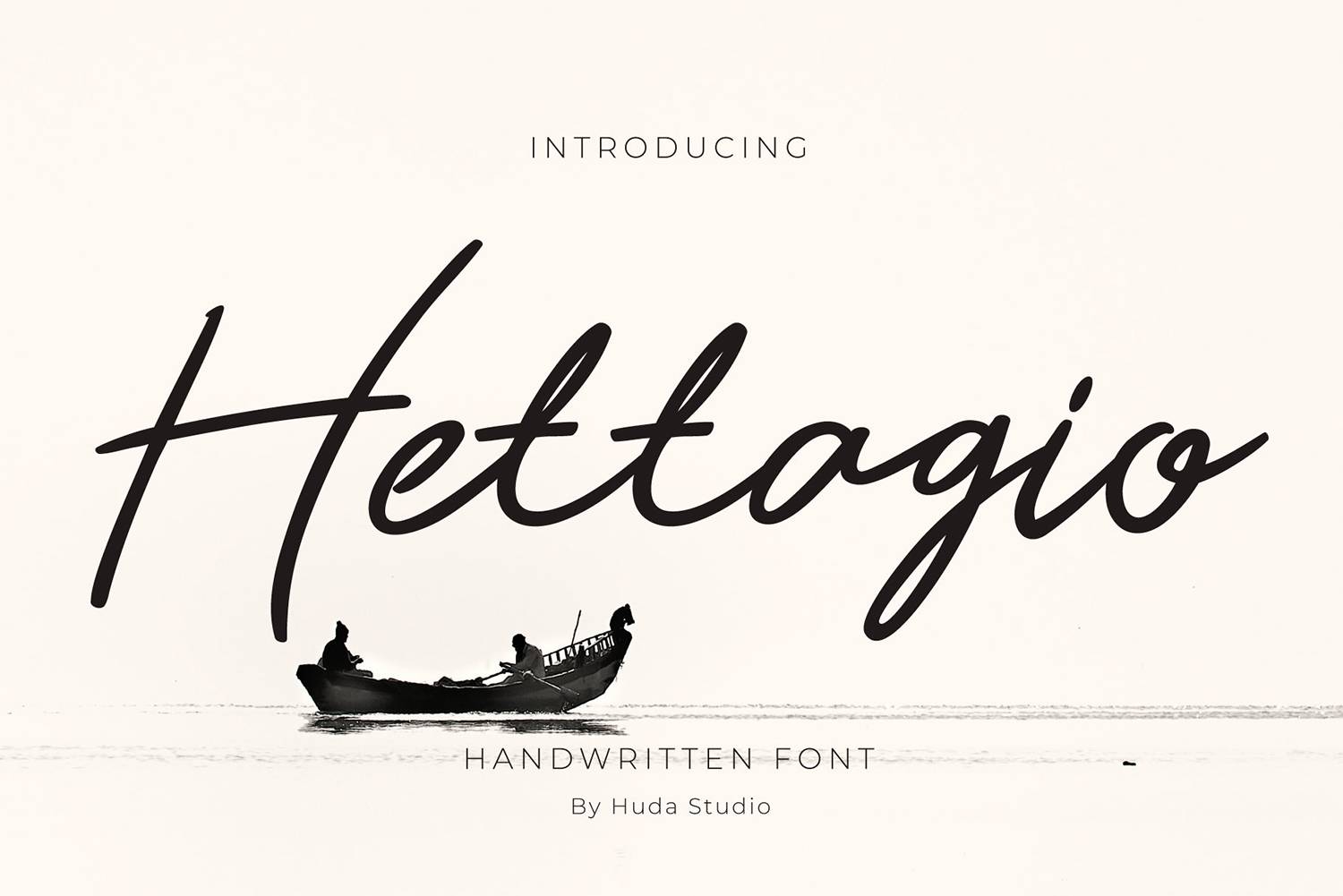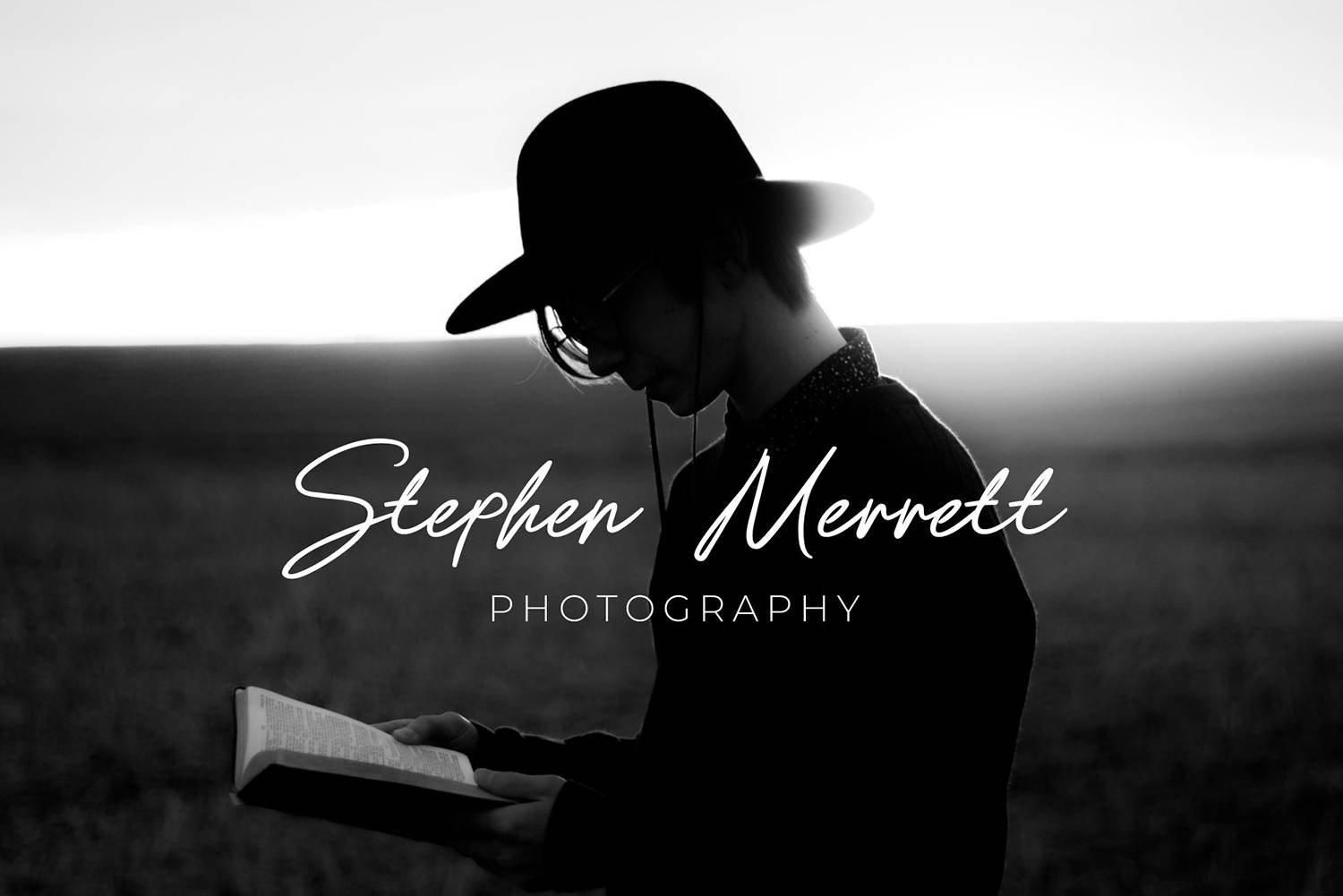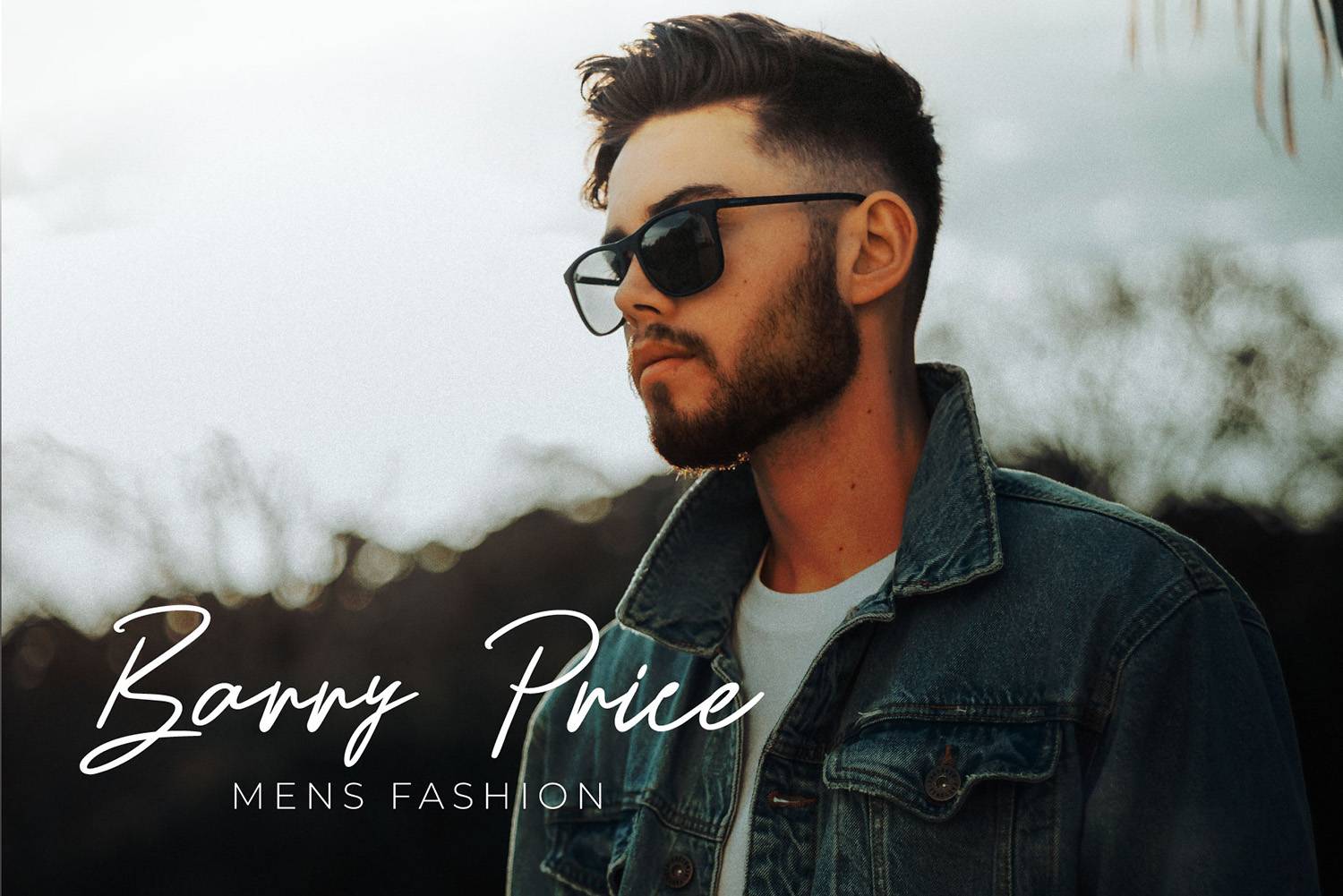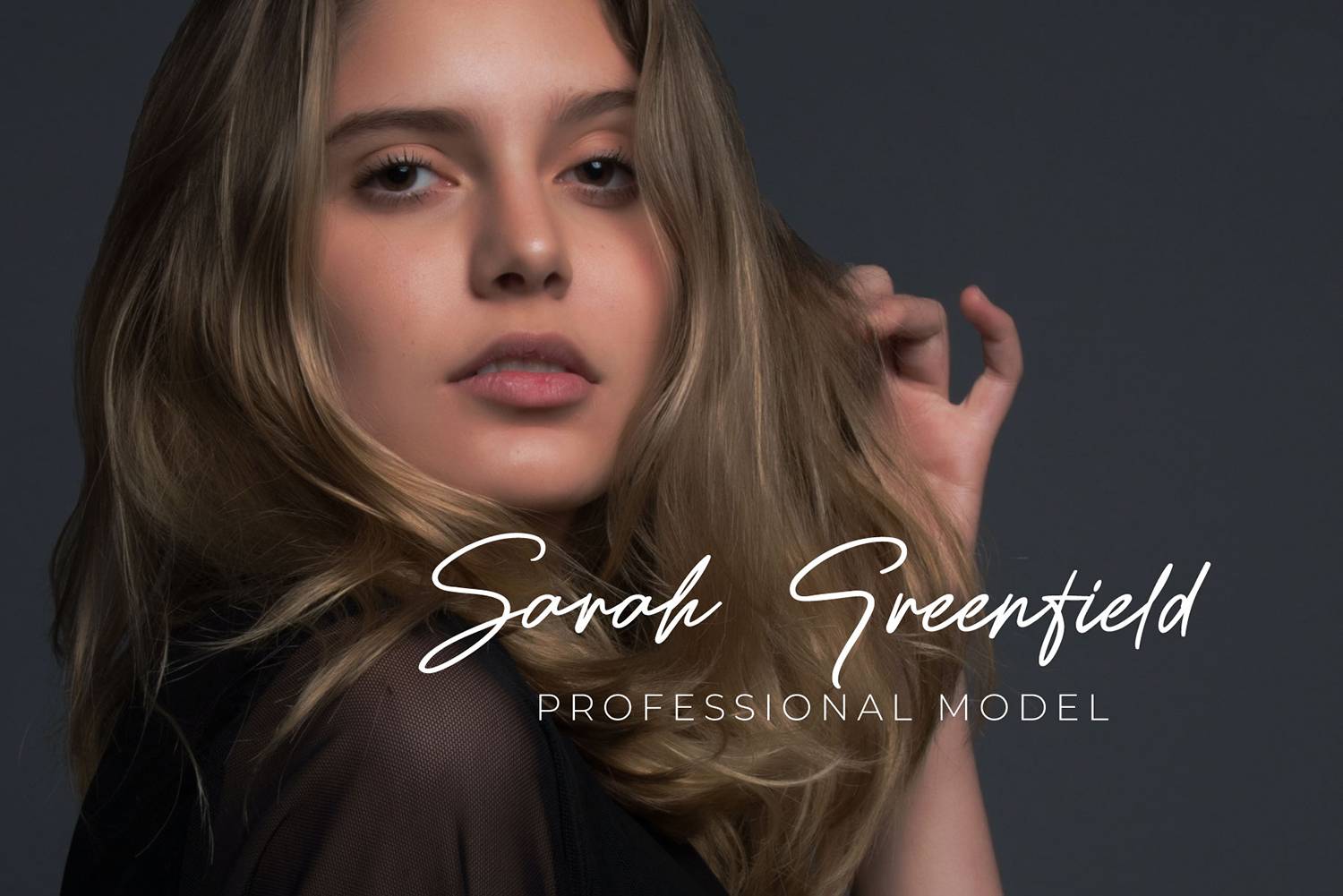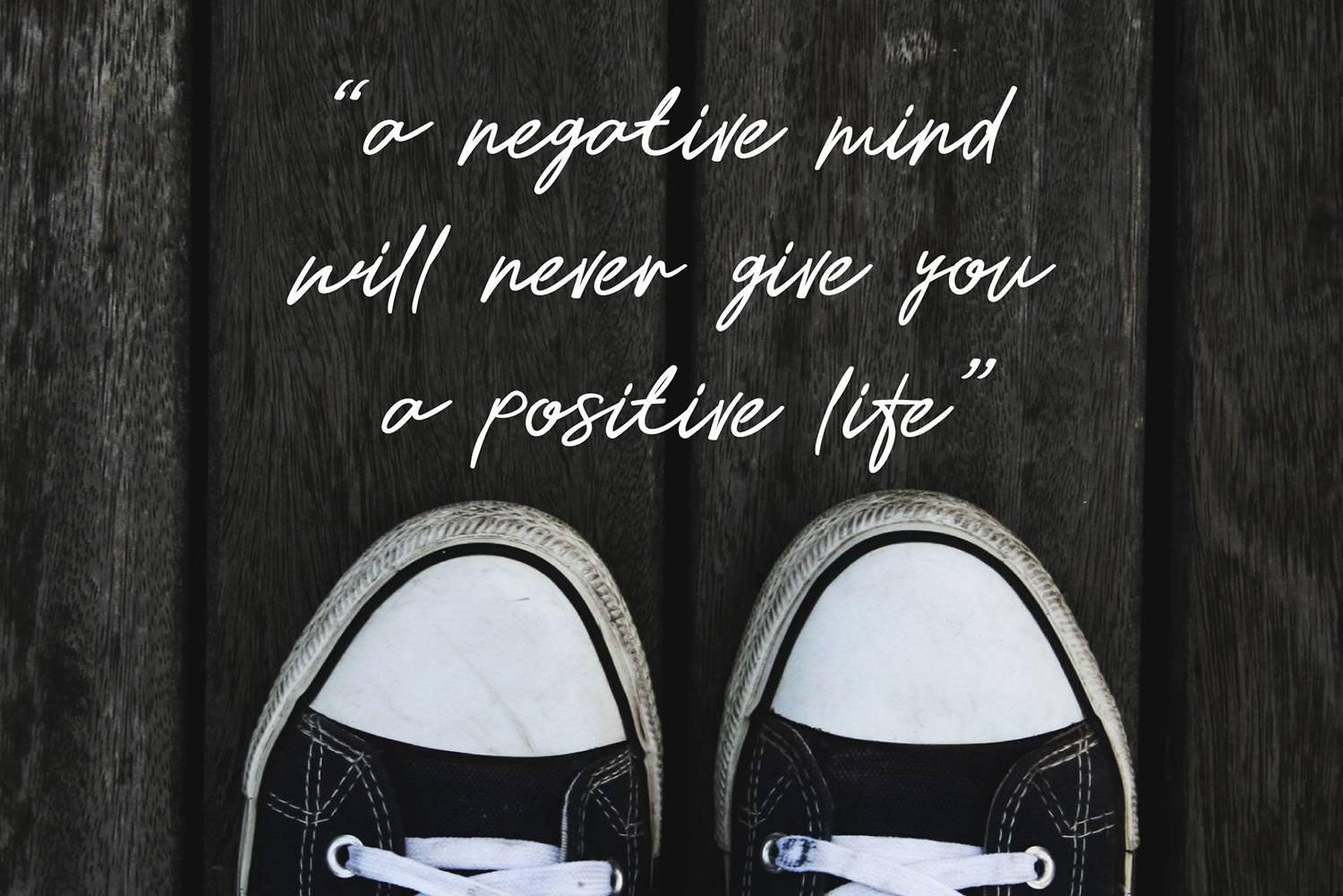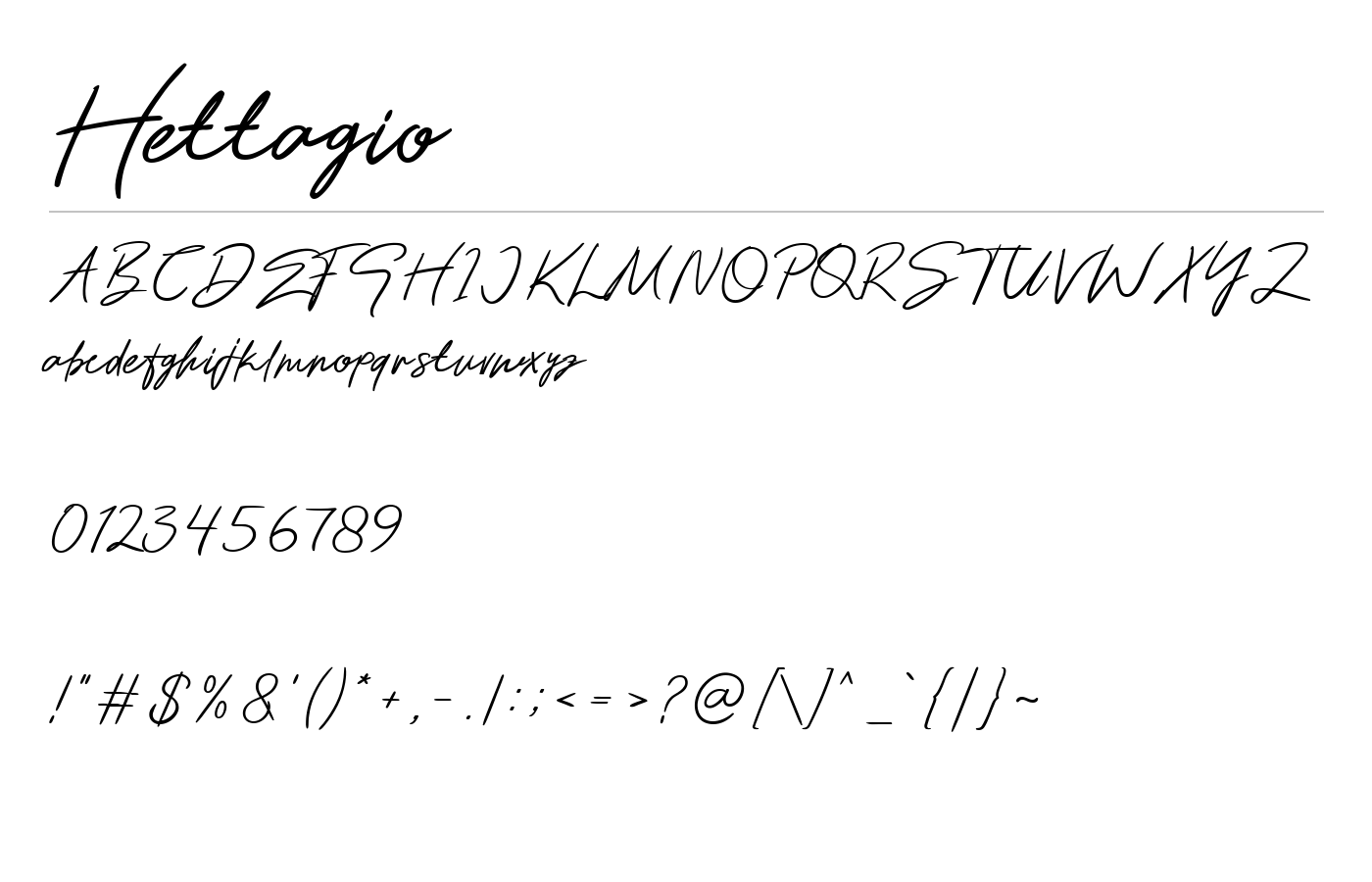
Hettagio is a sleek, modern script font with a handwritten feel, characterized by its thin, flowing strokes and elegant, slightly slanted letterforms. Its delicate appearance combined with clean lines makes it ideal for adding a personal touch to branding, invitations, and stylish editorial projects where a sophisticated yet approachable vibe is desired. This font works best in headlines, logos, and creative designs seeking a refined, contemporary script style.